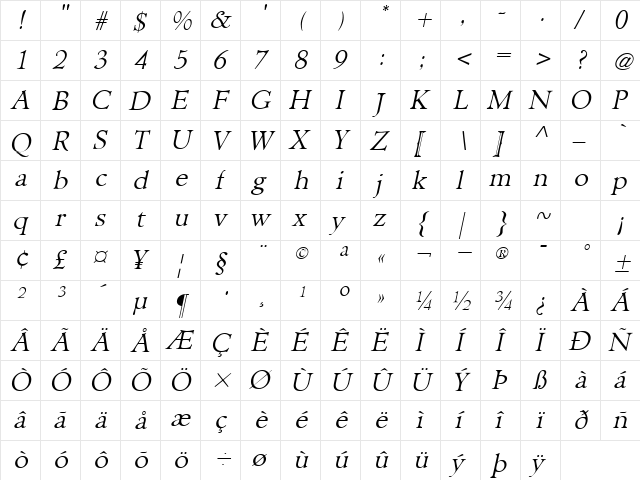
NewHampshireLight Italic Font Preview
Design Context for NewHampshireLight Typeface
NewHampshireLight takes a measured approach to typography — its balanced proportions and neutral character make it a reliable workhorse for both digital and print work. The dynamic lean of this cut emphasises speed and emphasis in any layout. The delicate stroke weight brings airiness and refinement to layouts.